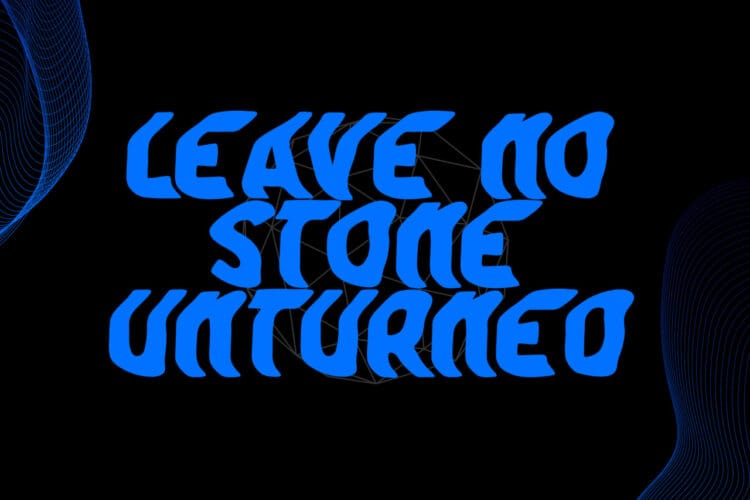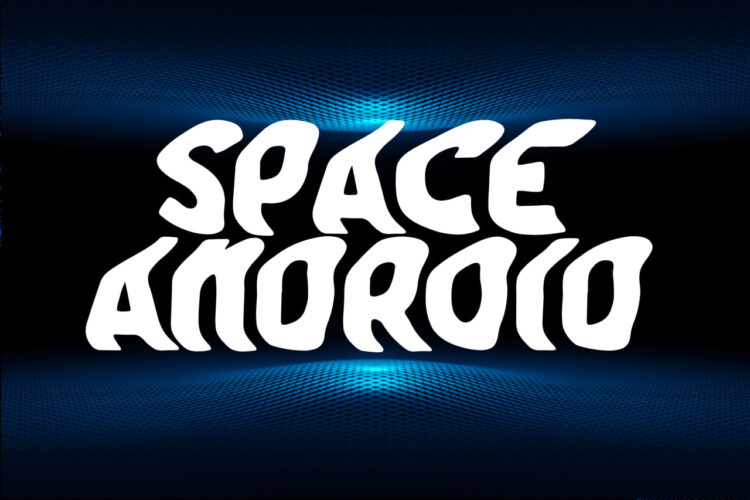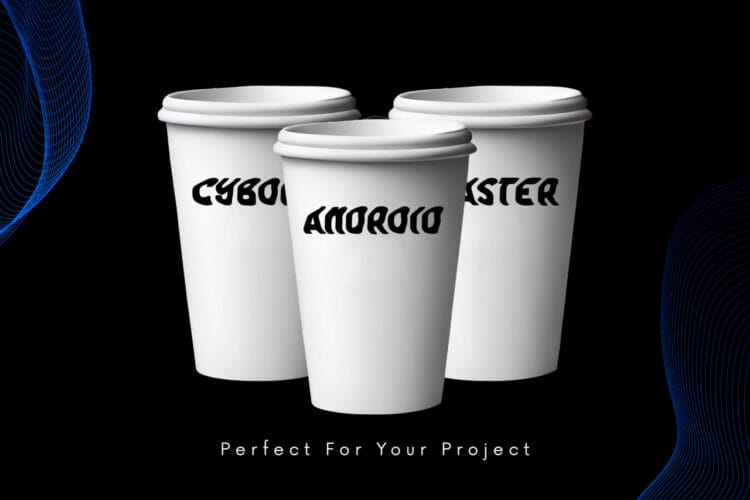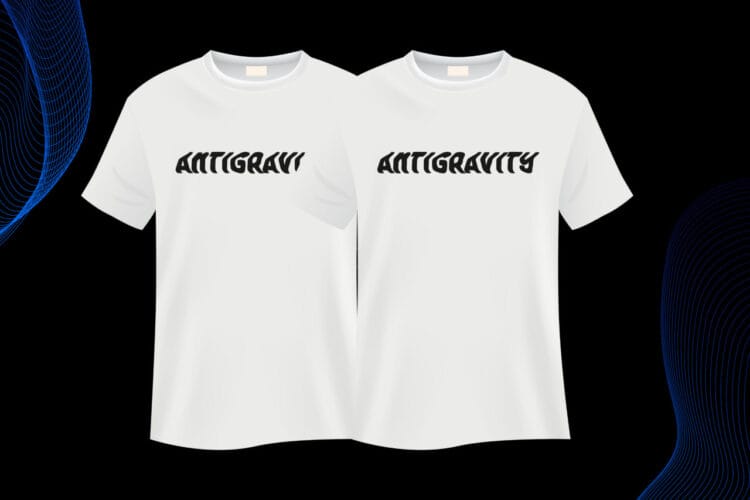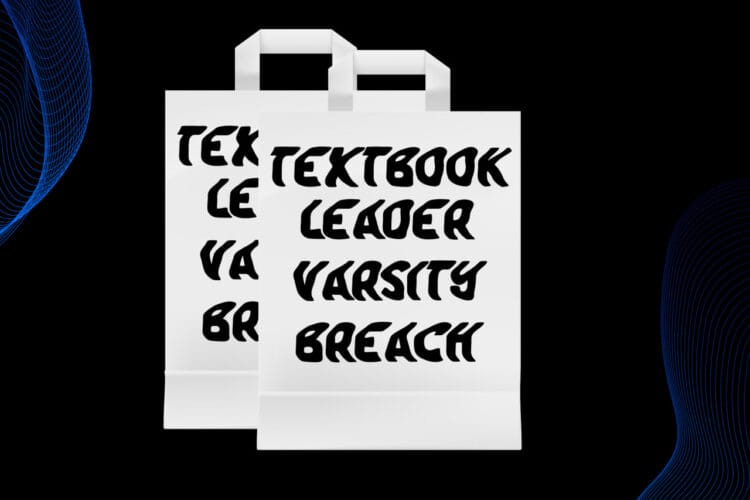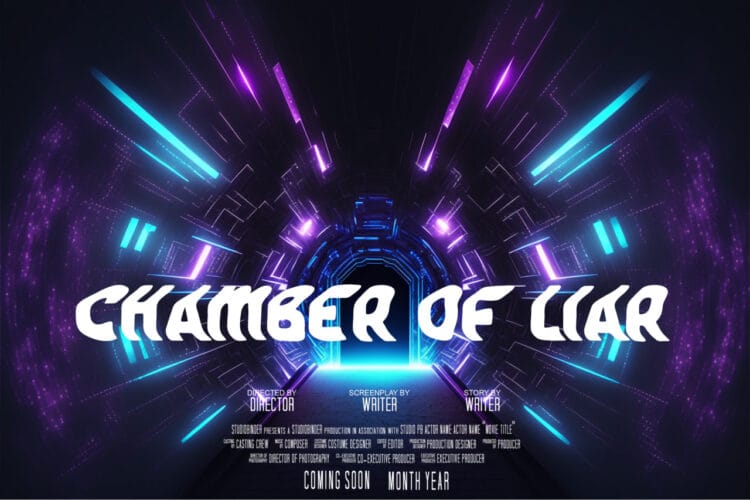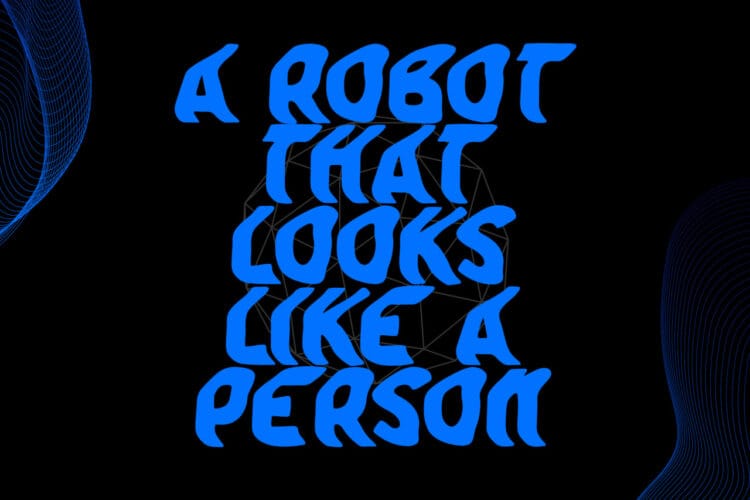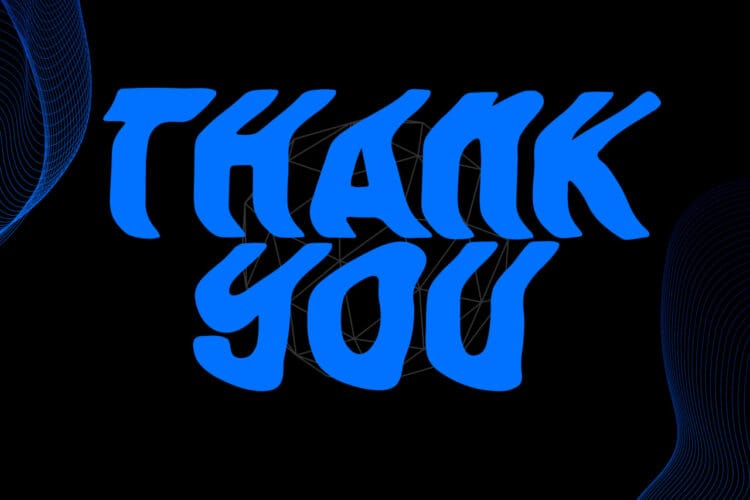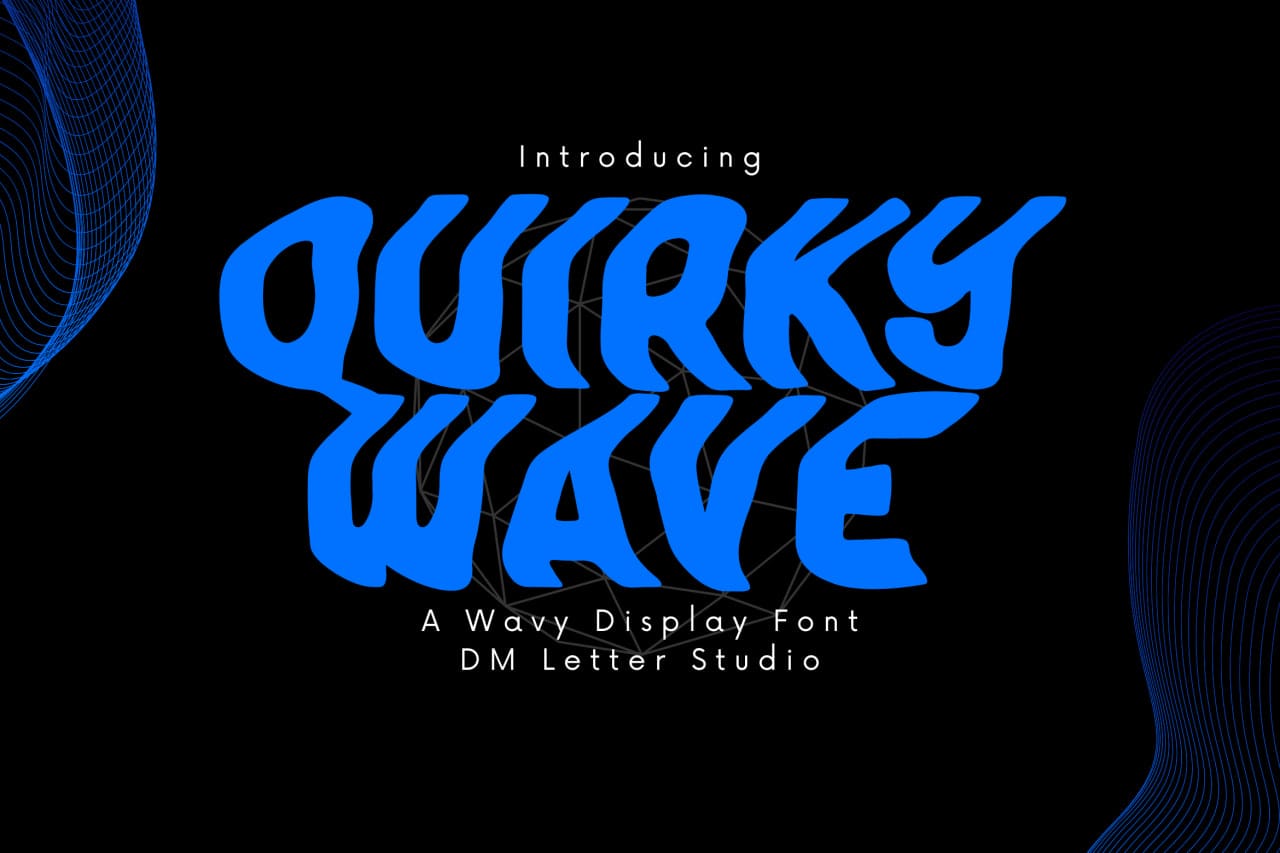
Meet Quirky Wave Font
Quirky Wave Font brings playful motion to bold, rounded letters. Lines feel smooth and friendly. Curves ripple gently, like text dancing across the page. Because the shapes stay thick and clear, your words read fast on screens and in print. Use it for shirts, stickers, covers, logos, and fun social posts. Moreover, it works well for kids’ designs, summer themes, and creative brands that want energy without chaos.
Where Quirky Wave Font shines
Set short phrases like “Good Vibes,” “Stay Sunny,” or a first name. Then add outlines, sticker borders, or soft shadows for a puffy, retro look. Since spacing is tuned for headlines, layouts come together in minutes. As a result, you can build full bundles for merch, posters, and digital products with less tweaking. Plus, the wave effect gives motion even in simple, one-word designs.
Design playful layouts with Quirky Wave Font
Keep copy short and let Quirky Wave Font lead. Pair it with a clean sans for captions and small details. Meanwhile, explore color stories like coral and teal, lemon and navy, or lilac and mint. Because the forms are chunky and smooth, gradients, glow, and light grain all work very well. However, avoid long sentences on tiny labels. Names, dates, and bold phrases will hit hardest.
Styling ideas for wavy type
Use curved baselines for extra bounce on posters.
Add layered colors for a bubble-letter or sticker feel.
Try simple icons like stars, waves, and smileys around the text.
Mix Quirky Wave Font with flat backgrounds for quick, high-contrast thumbnails.